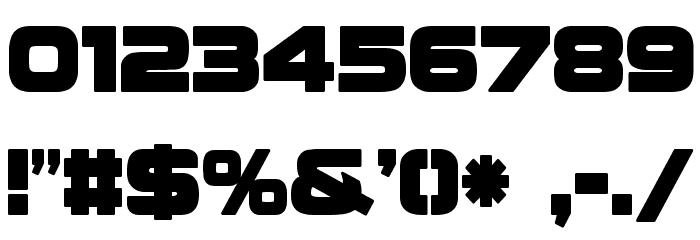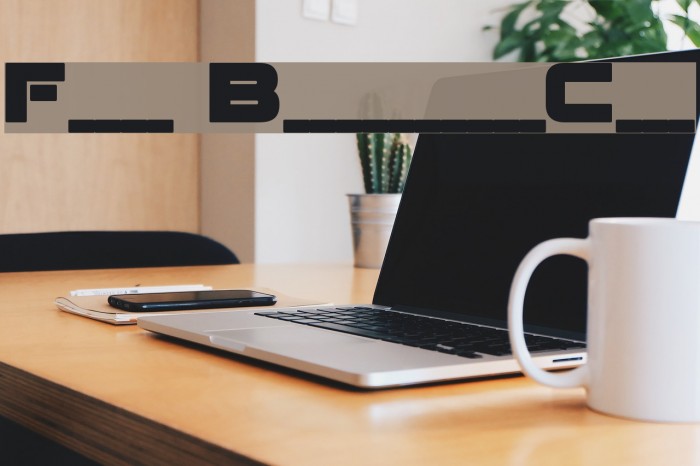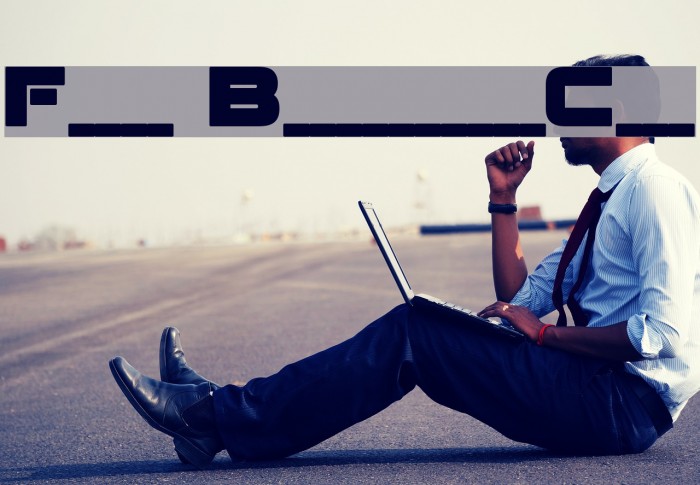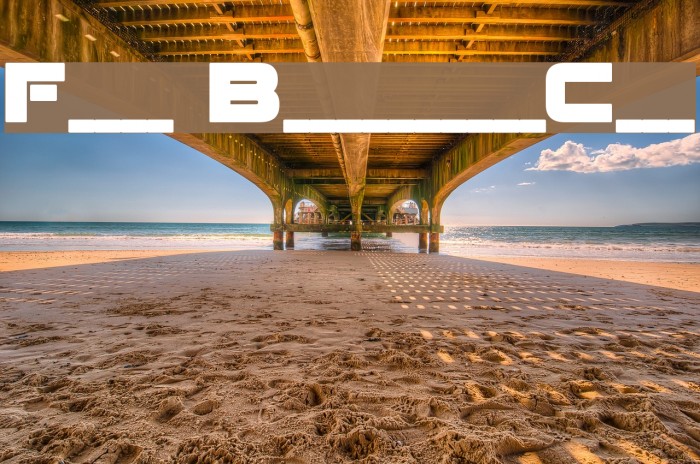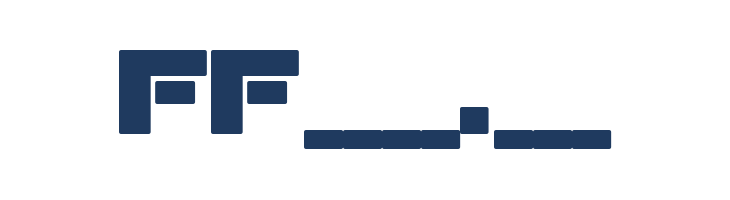
Fenix BlackletterCaps Font
Fenix BlackletterCaps Description
This font features bold, geometric letterforms with a strong, impactful presence. The uppercase letters are designed with sharp angles and a uniform thickness, creating a modern and assertive look. The numerals and special characters maintain the same bold style, ensuring consistency across all glyphs. The overall design is clean and straightforward, making it suitable for attention-grabbing headlines and titles. Its solid structure and even weight distribution give it a sense of stability and reliability.
A bold, geometric font with sharp angles and uniform thickness from Uncategorized fonts.
- Proposed Projects: Ideal for branding, logos, posters, and any design requiring a strong visual impact.